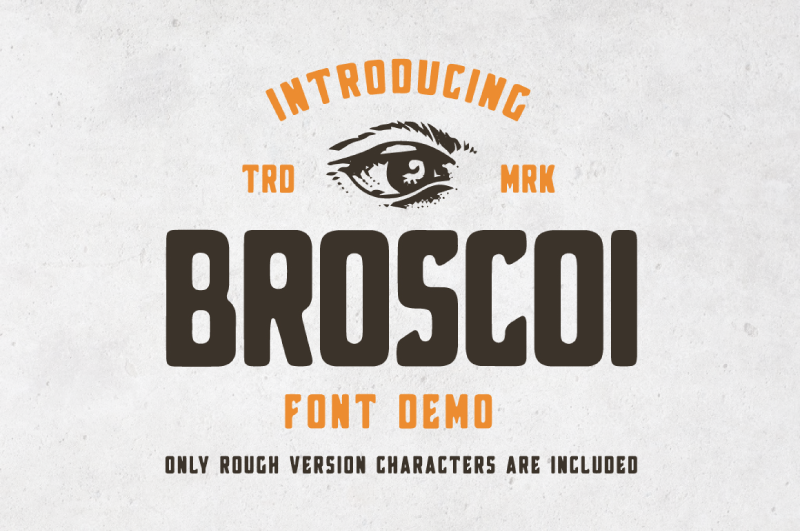
Preview and download Broscoi Font. Created by Mircea Bucsa in Fancy Retro styles with Demo license.
Font name: | Broscoi |
Author: | Mircea Bucsa |
By installing or using this demo version you agree to use it as PERSONAL USE ONLY and requires a license for commercial use! --- The font license can be purchased at: https://lovepowerdesigns.com/ --- Meet "Broscoi - Free Vintage Font" This is a demo version of the "Broscoi Font Family". It includes only the rough uppercase letters. It works nicely for projects that require a more refined yet vintage aesthetic. It would be a perfect choice to design posters, logos, t-shirt and magazine prints, eye-pleasing typographic designs and more. |